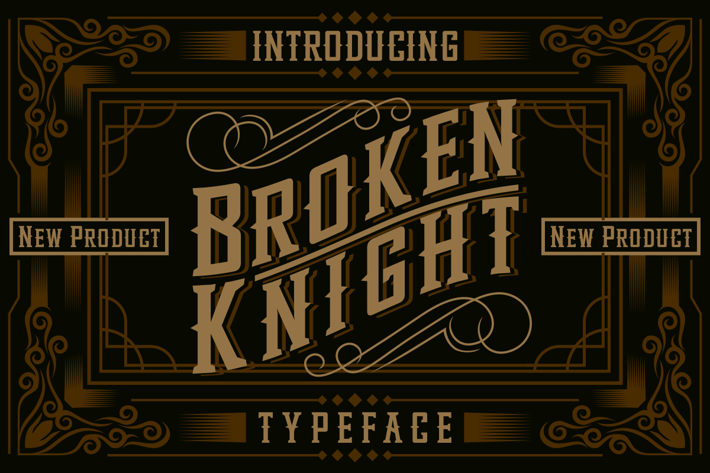
Broken Knight Typeface
Broken Knight Display font.
Broken Knight Display font can be used in different purposes: logo and branding, sci-fi poster, product packaging, advertising, invitations, port apparel, game industry, movie and any futuristic typography design projects.